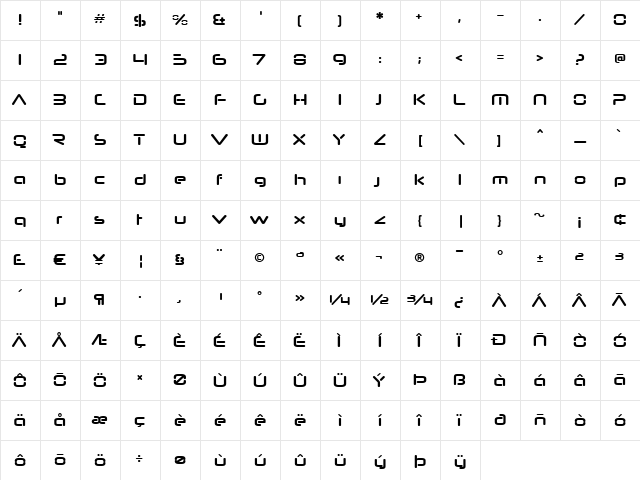
Neuropol Nova Bold
Design Context for Neuropol Nova Typeface
Neuropol Nova offers clean, dependable letterforms without strong stylistic allegiance, making it a practical choice for designers who need flexibility. The heavy weight commands attention and anchors typographic hierarchies.